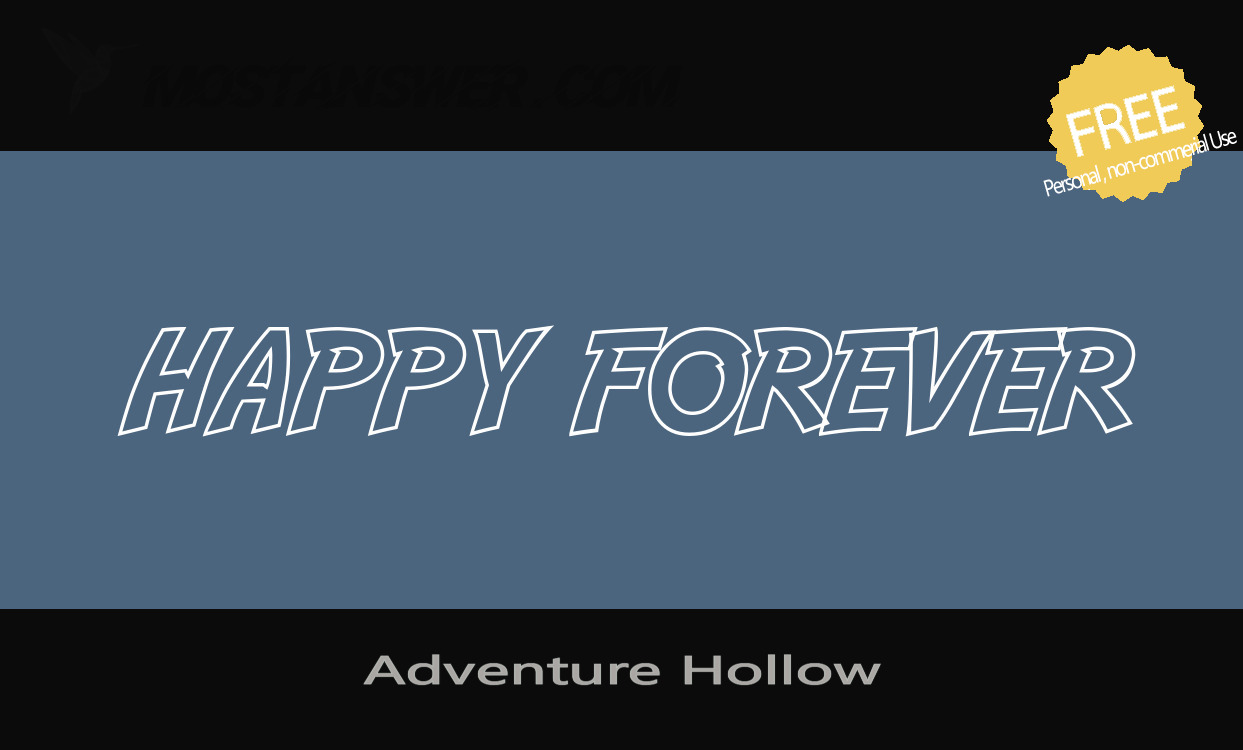
Adventure Hollow Font
Adventure Hollow Font - Web adventure is a pulpy, decorative font is based on the main logo of the indiana jones (raiders of the lost ark) franchise. Web adventure hollow regular.
Web adventure hollow regular. Web adventure is a pulpy, decorative font is based on the main logo of the indiana jones (raiders of the lost ark) franchise.
Web adventure is a pulpy, decorative font is based on the main logo of the indiana jones (raiders of the lost ark) franchise. Web adventure hollow regular.
Adventure Hollow font
Web adventure is a pulpy, decorative font is based on the main logo of the indiana jones (raiders of the lost ark) franchise. Web adventure hollow regular.
Adventure Hollow Font by Pixel Sagas
Web adventure hollow regular. Web adventure is a pulpy, decorative font is based on the main logo of the indiana jones (raiders of the lost ark) franchise.
Adventure Hollow Font
Web adventure hollow regular. Web adventure is a pulpy, decorative font is based on the main logo of the indiana jones (raiders of the lost ark) franchise.
Web Adventure Hollow Regular.
Web adventure is a pulpy, decorative font is based on the main logo of the indiana jones (raiders of the lost ark) franchise.